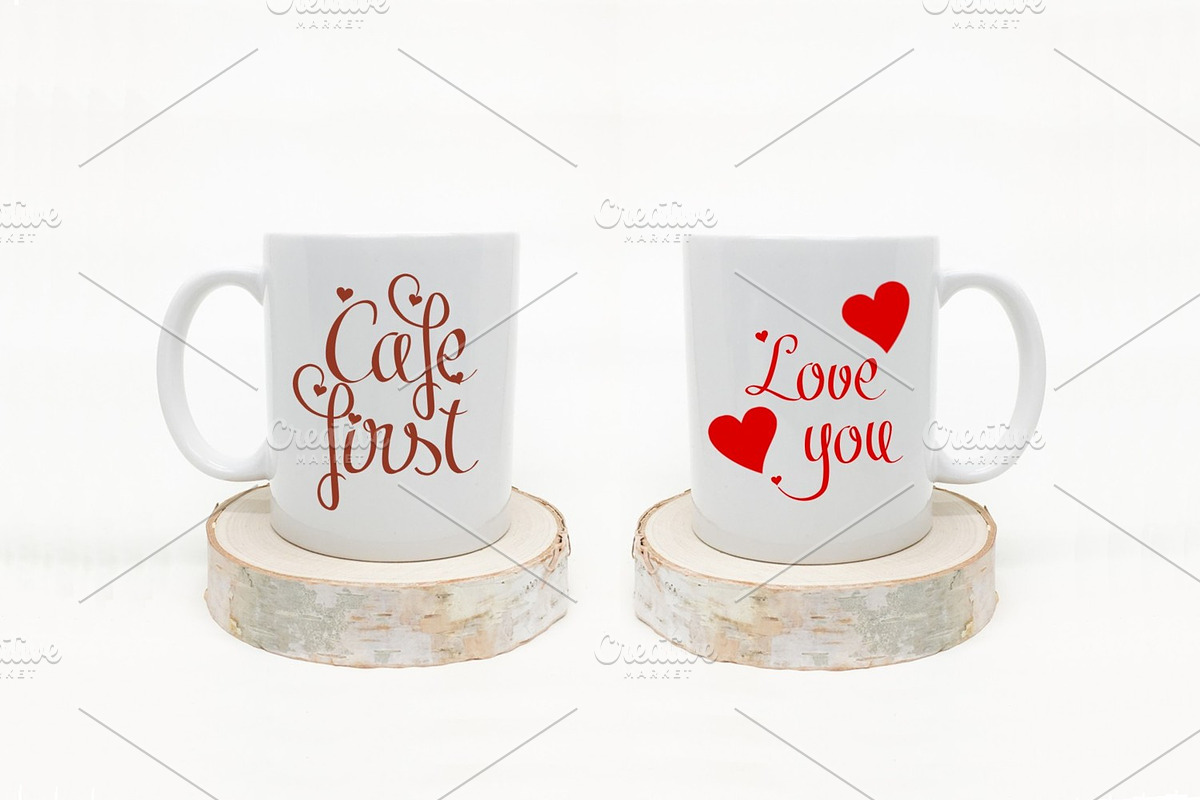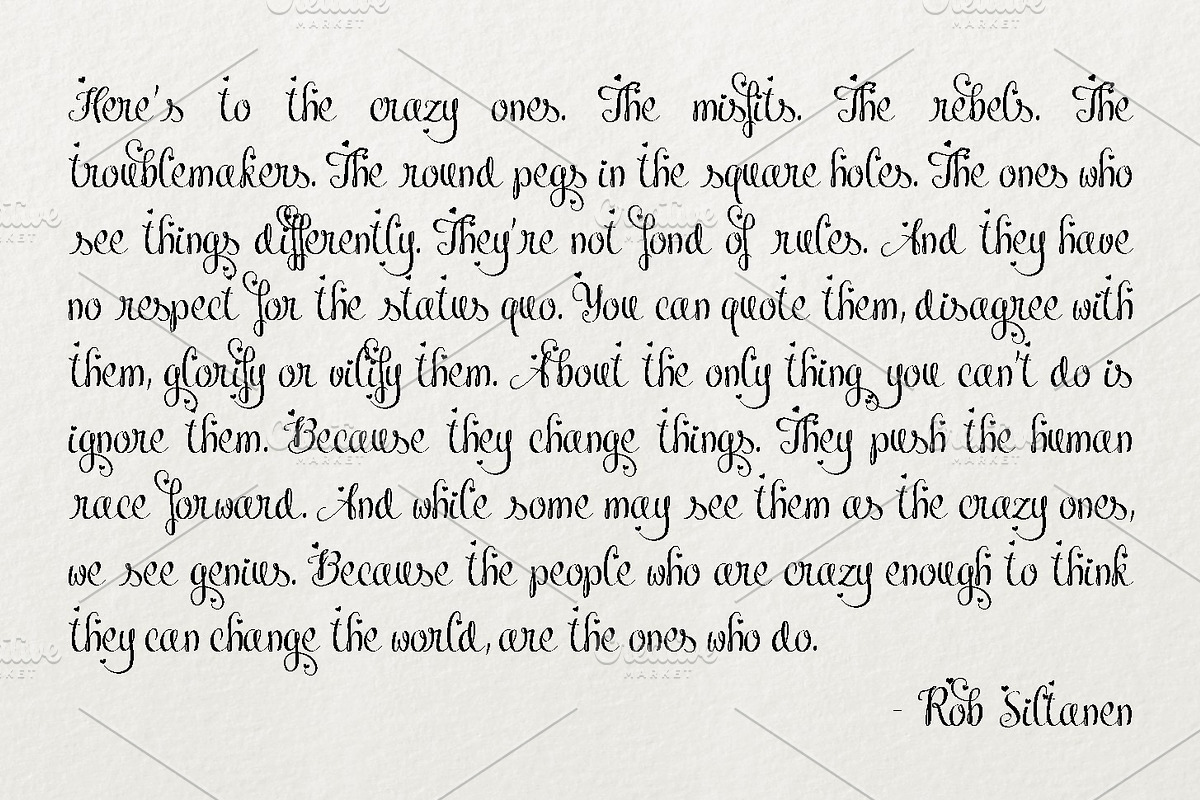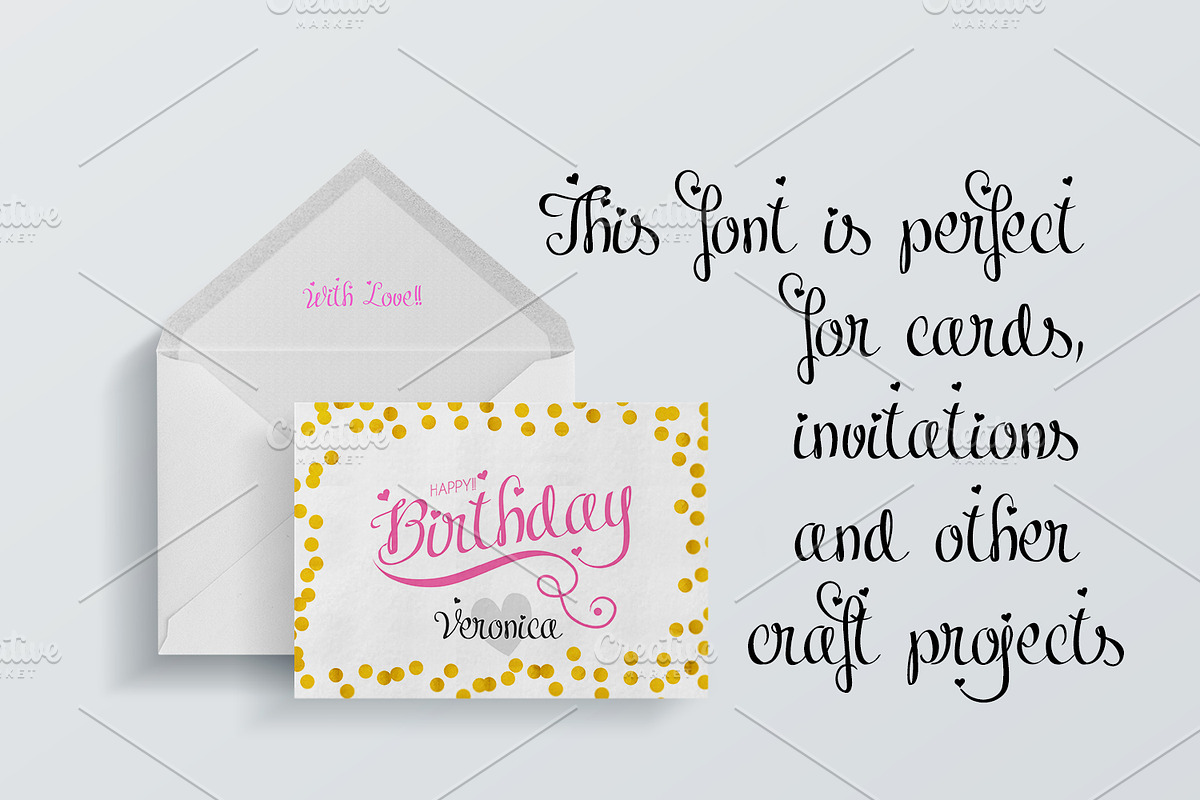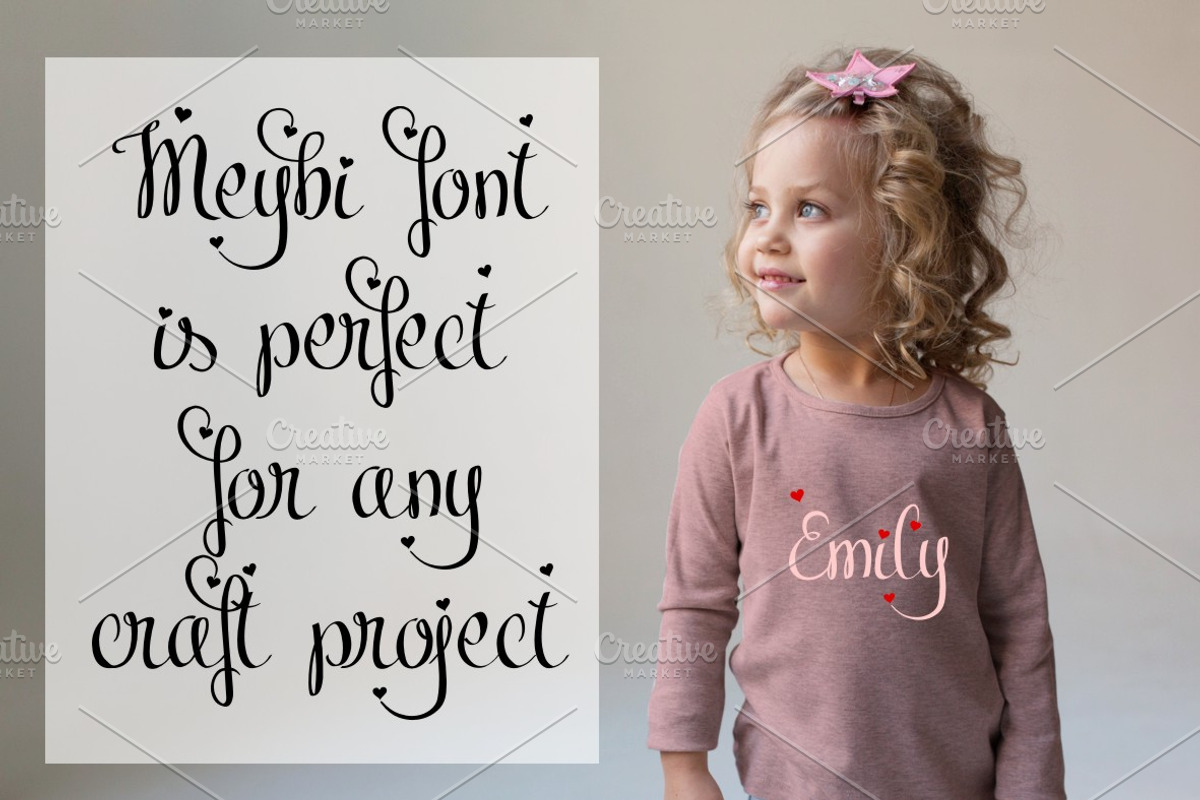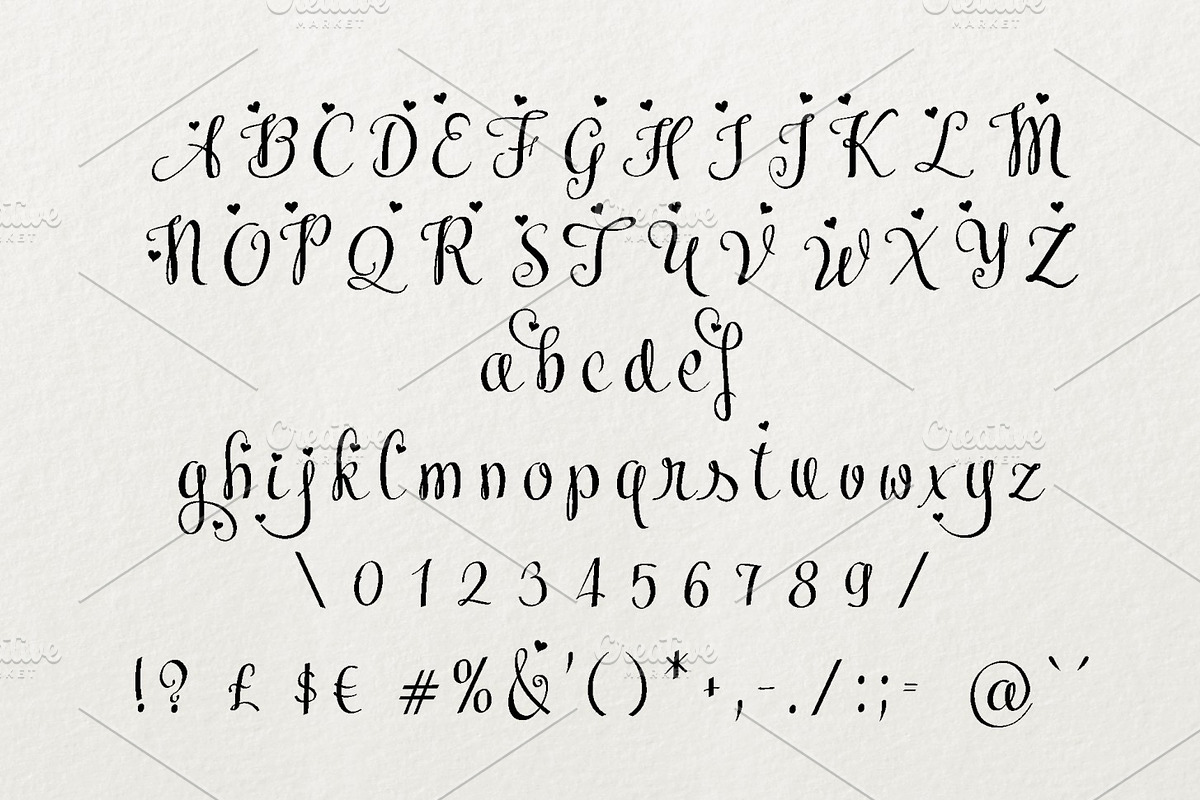
Meybi
Introducing Meybi handwritten typeface. Great for cards and for many creative craft projects! Download and use across a huge range of programs such as Adobe programs, Corel programs, Cricut and many others!
Meybi by Digital Typeface Studio fits naturally into Branding, posters, packaging, typography.